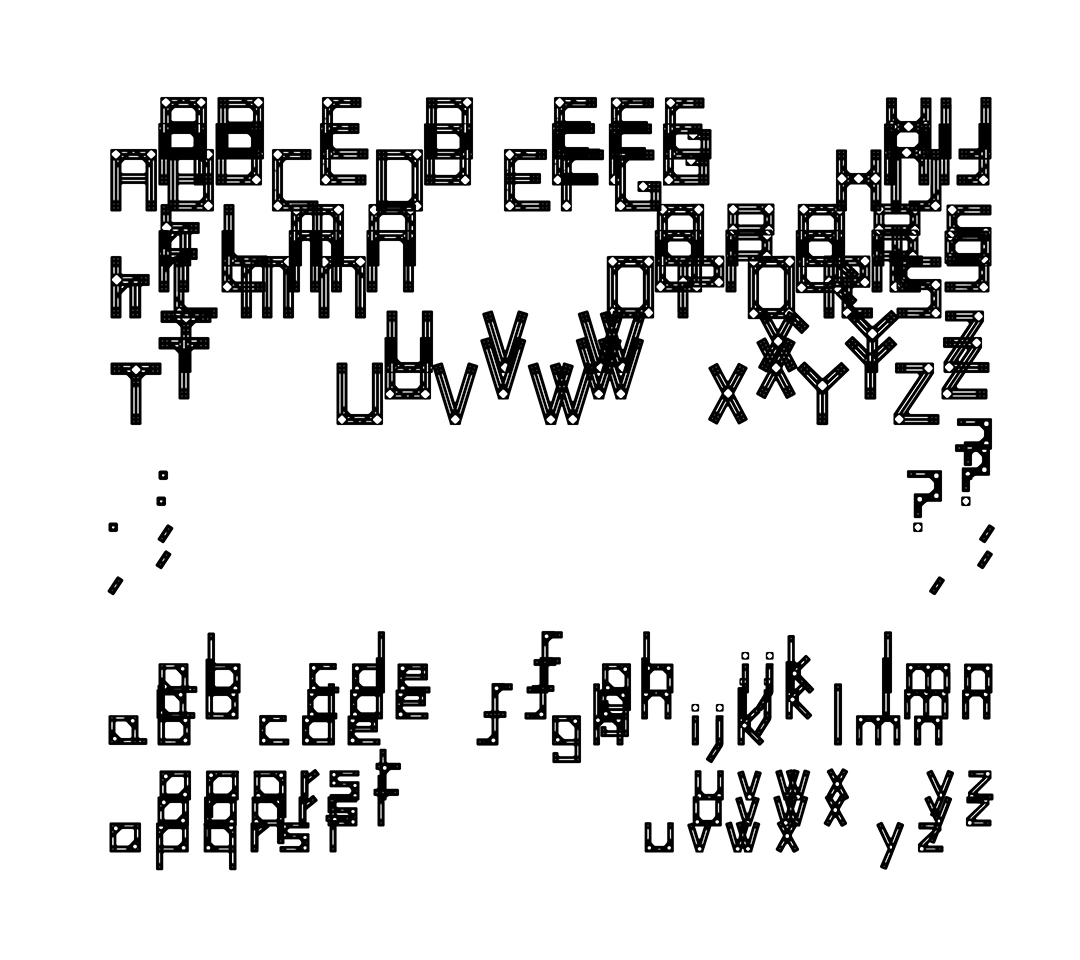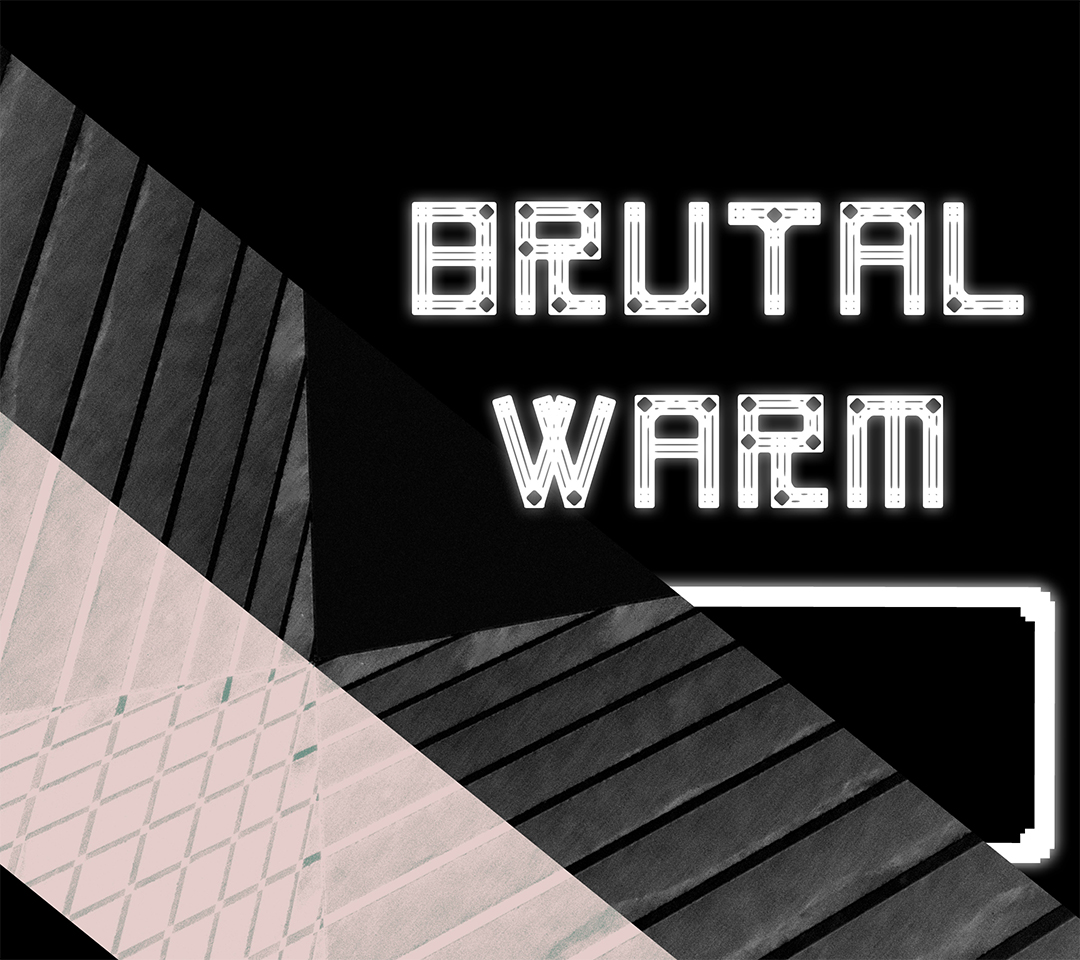
Inspired by National Theatre, a "Highly discussed" Architecture, which relate to the 1950s Brutalism Movement, I decided to make a typeface that makes each character looks like a small Brutalism Architecture. Thus, I took the square shape and added rounded corners to show the warmness.
Each character was designed full of details and was used to further art works developments and any creative creations.
This is a typeface that does not quite for "daily writing", but people can defiantly create possibilities with it. I hope the typeface can bring a spark inside darkness and comfort in dizzy.